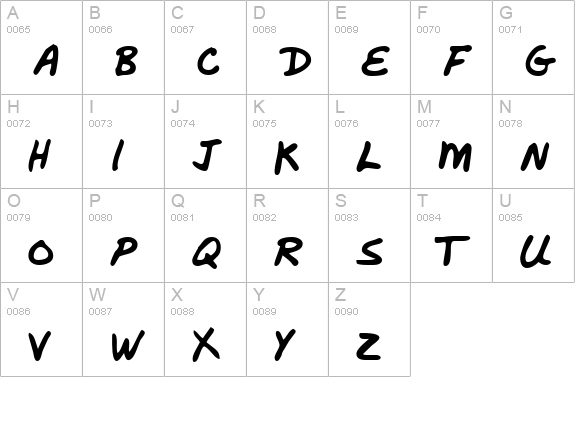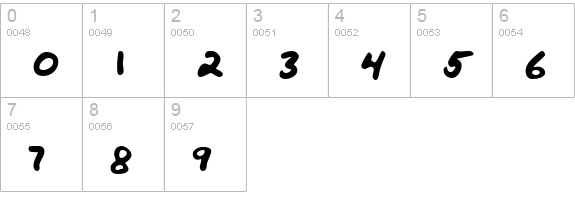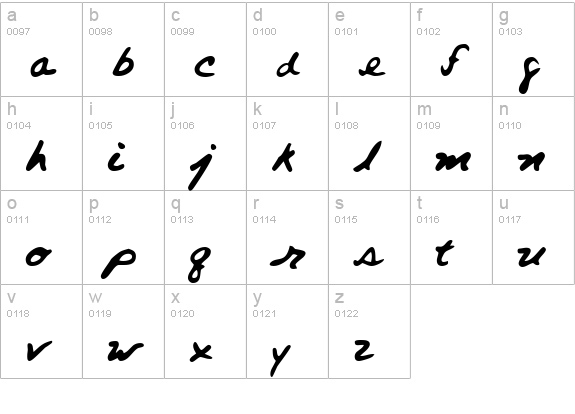
Sigmund Font Details
Introducing Sigmund, a captivating and versatile font that will elevate your designs to new heights. With its unique blend of elegance and modernity, Sigmund is the perfect choice for a wide range of projects, from branding and advertising to editorial and packaging. This exquisite typeface exudes sophistication and professionalism, making it an excellent option for both print and digital applications. Sigmund boasts a carefully crafted letterform, with its clean lines and balanced proportions, ensuring legibility while maintaining a touch of artistic flair. Its distinct character set includes a variety of weights and styles, allowing for endless creative possibilities and ensuring that your message is conveyed with the utmost impact. What sets Sigmund apart is not only its exceptional design but also its accessibility. It is available to download for free at FontsMarket.com, making it an invaluable resource for designers, students, and anyone in need of a high-quality typeface without breaking the bank. Whether you are a seasoned professional or just starting out, Sigmund is a valuable addition to your font library. Unleash your creativity with Sigmund and let its timeless beauty and versatility transform your designs. From eye-catching headlines to elegant body text, this font is sure to make a lasting impression. Don't miss out on the opportunity to enhance your projects with Sigmund - download it for free today at FontsMarket.com and experience the power of this exceptional font firsthand.